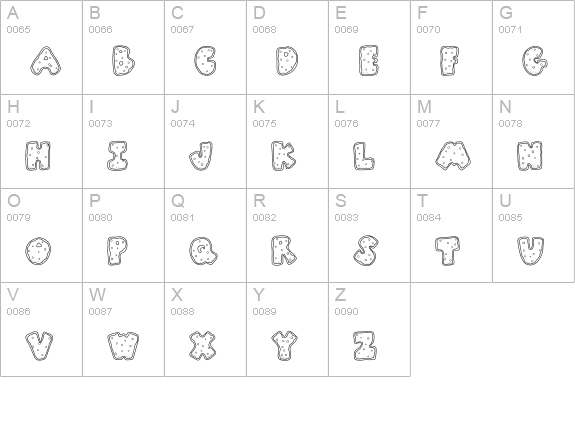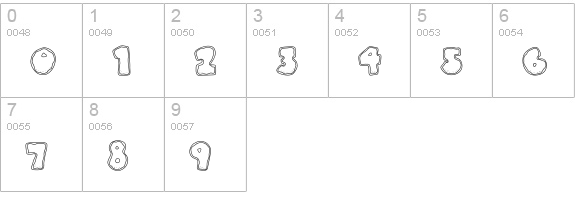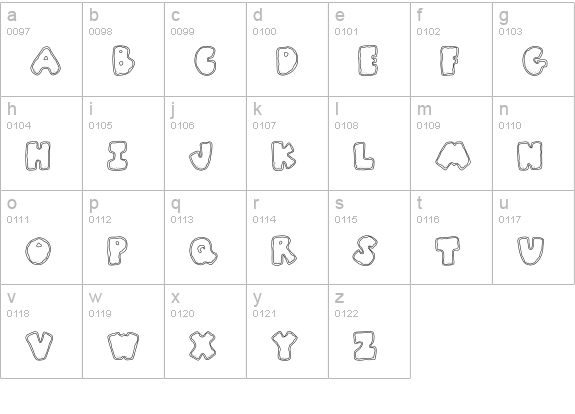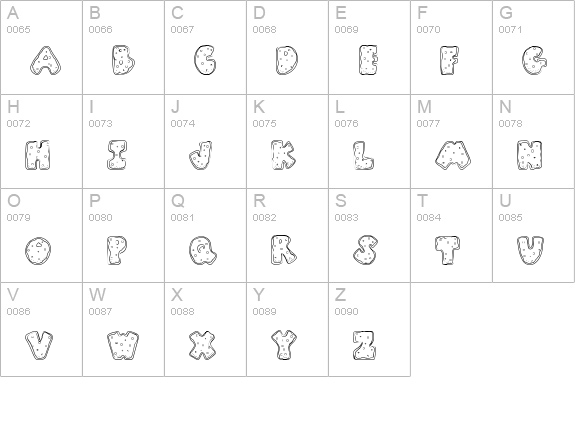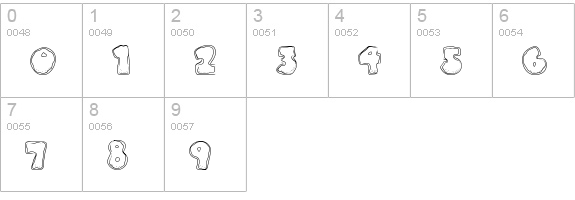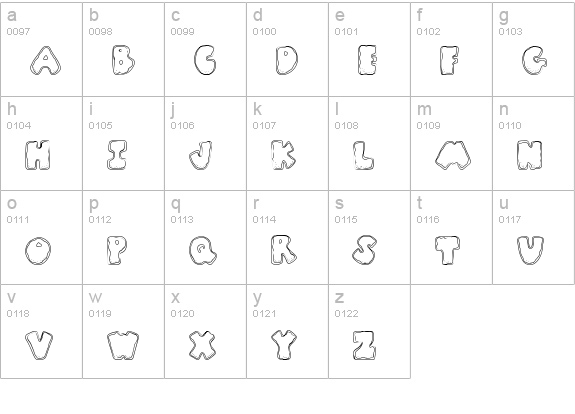
Introducing CK Sugar Cookie font, a delightful and sweet typeface that will add a touch of whimsy to your design projects. This charming font features cute and playful letterforms that evoke the cozy feeling of homemade sugar cookies. Perfect for creating greeting cards, invitations, branding materials, and more, CK Sugar Cookie font is sure to bring a smile to your audience. Best of all, CK Sugar Cookie font is completely free to download at FontsMarket.com. So go ahead and add a sprinkle of sweetness to your designs with this fun and versatile typeface. Whether you're a graphic designer, crafter, or just someone looking to add a bit of flair to your projects, CK Sugar Cookie font is the perfect choice. Download it today and let your creativity soar!